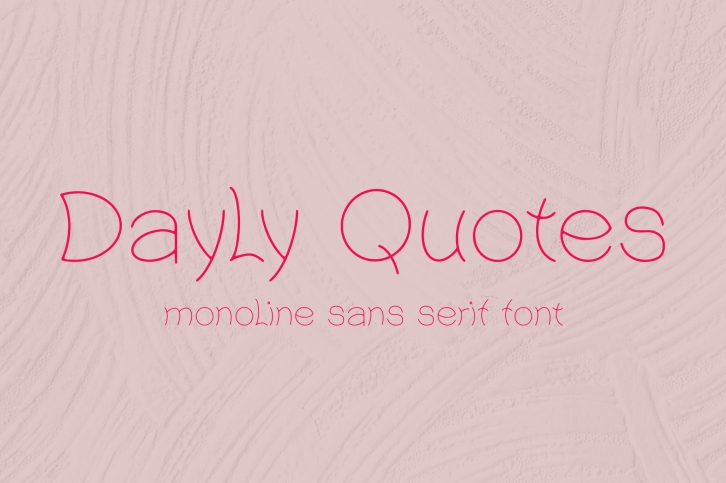
Daily Quotes is a cute, thin lettered and incredibly unique display font. Simple but with a strong visual effect, this font will instantly make your creation more appealing than any others.